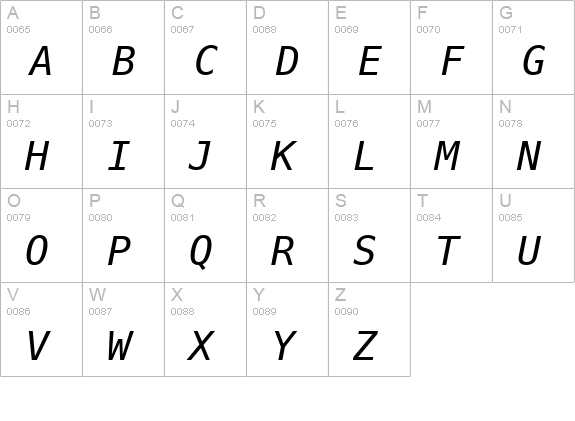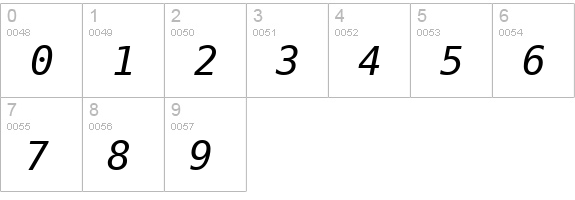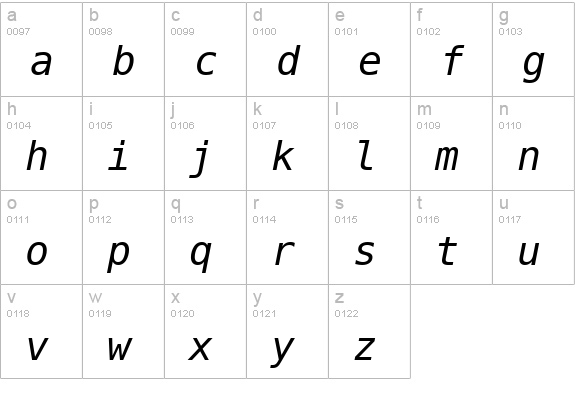
Bitstream Vera Sans Mono Oblique is a distinctive, italic variant in the Bitstream typeface family \xE2\x80\x94 well suited to design and typography projects.
Bitstream Vera Sans Mono Oblique is a sleek and modern monospaced font designed for clear and easy readability. With its slanted italic style, this font adds a touch of sophistication to any text while maintaining its simplicity and legibility. Perfect for coding, programming, and other technical applications, Bitstream Vera Sans Mono Oblique is a versatile typeface that blends form and function seamlessly. One of the best features of this font is that it is completely free to use and distribute, making it accessible to a wide range of users and projects. Whether you're a designer, developer, or hobbyist, you can download Bitstream Vera Sans Mono Oblique at FontsMarket.com without any restrictions or limitations. Embrace the power of this stylish and practical font in your next project and elevate your design to the next level.